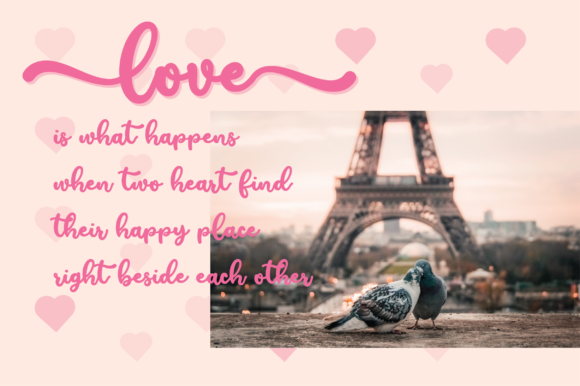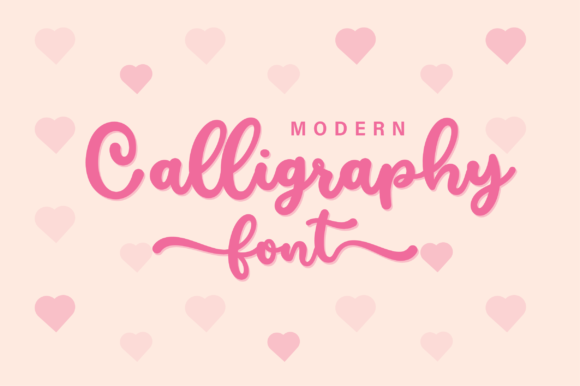
Heart Font
db-ku.com - Script & Handwritten -- Heart is a cute and lovely font full of love. It’s the ideal script for any love-themed projects, as well as Valentine’s Day crafts!